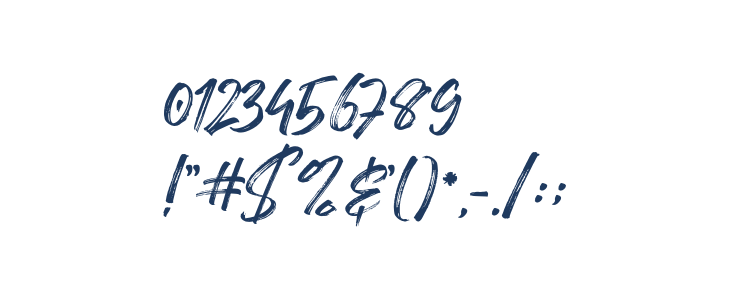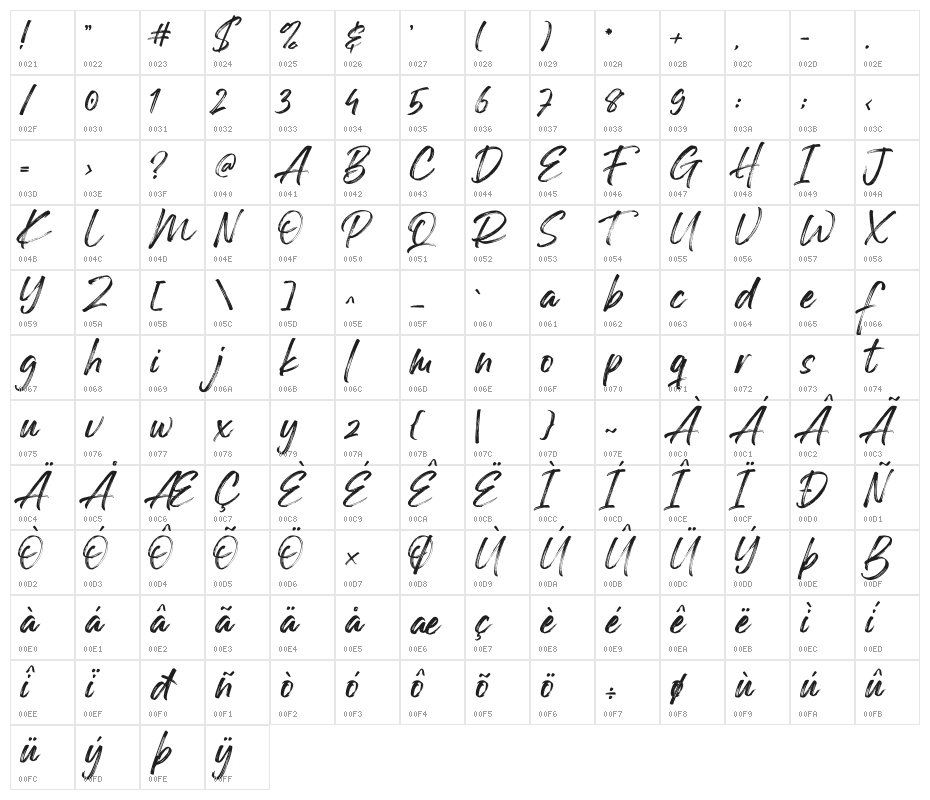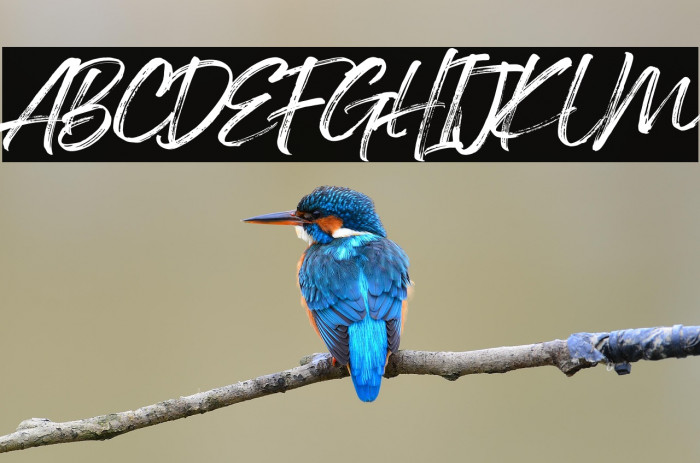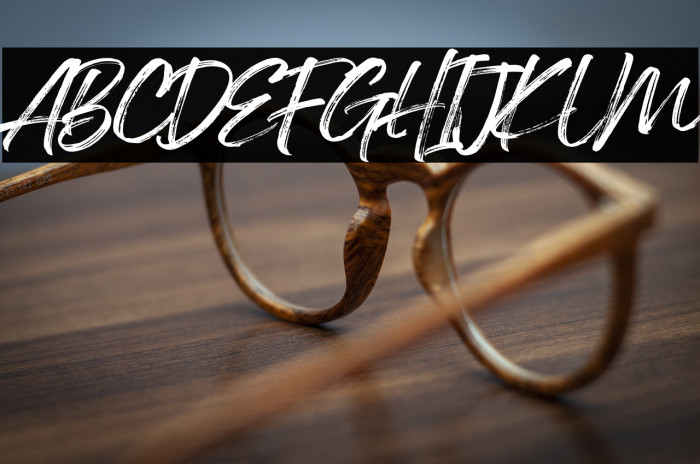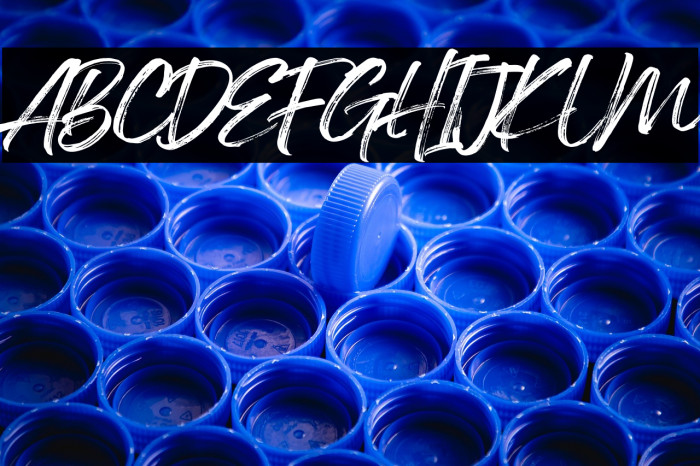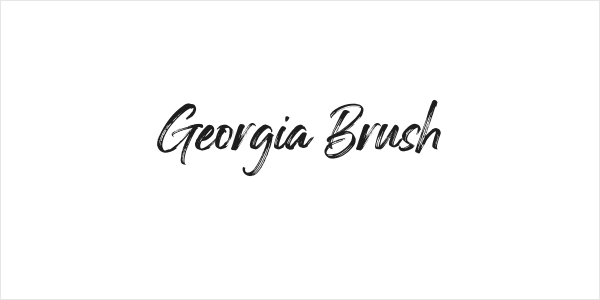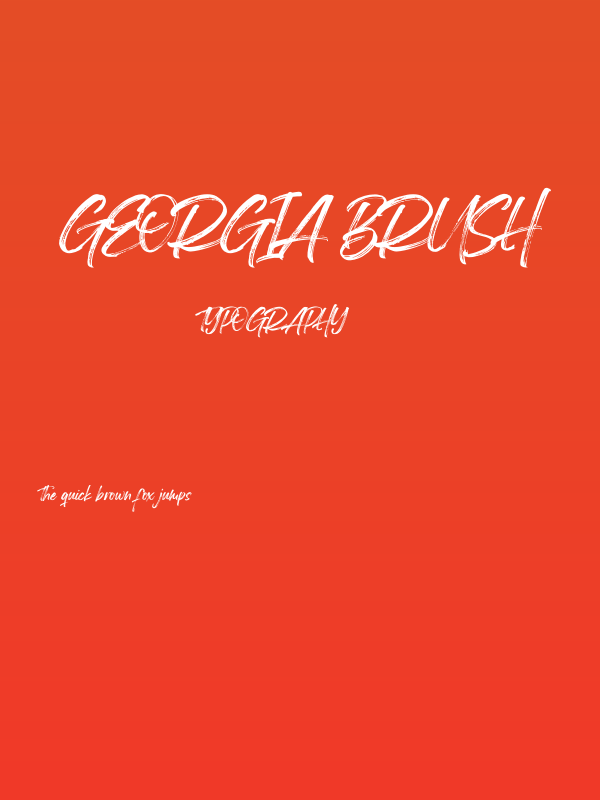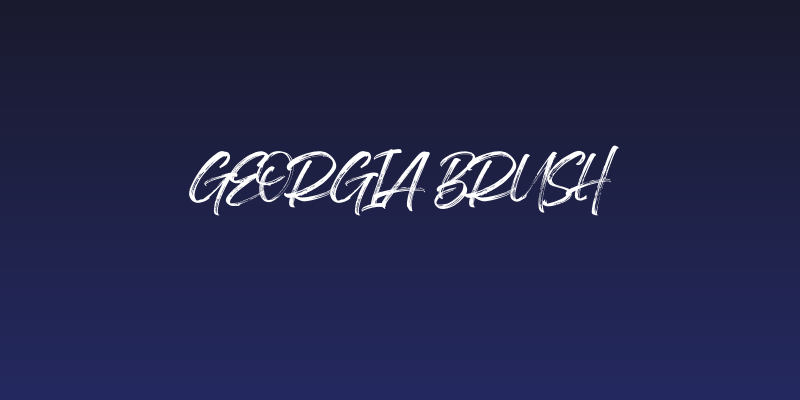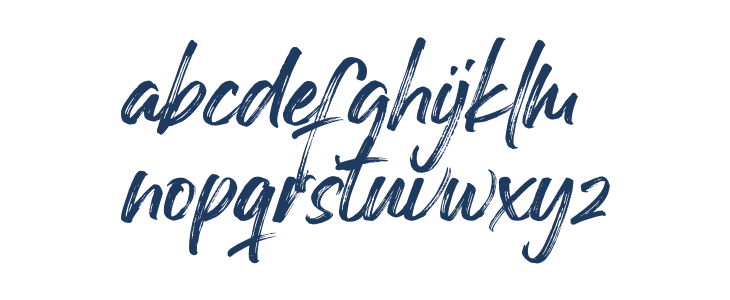
Georgia Brush Font
Georgia Brush Description
This font exudes a dynamic and energetic style, characterized by its bold, brush-like strokes that give it a handwritten appearance. The letters are fluid and slightly slanted, creating a sense of movement and spontaneity. The uppercase and lowercase letters maintain a consistent style, with varying stroke thickness that adds depth and texture. The numerals and special characters follow the same expressive design, making the font versatile for various creative applications. Its artistic flair makes it suitable for projects that require a personal touch or a bold statement.
Proposed ProjectsIdeal for branding, posters, artistic projects, and social media graphics.